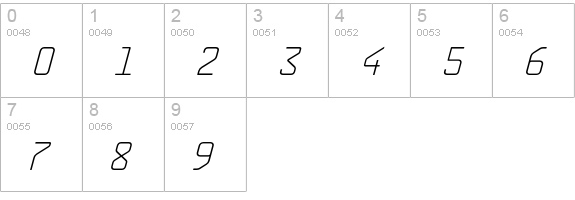
AlphavilleThin-Oblique Font Details
AlphavilleThin-Oblique is a distinctive, italic variant in the AlphavilleThin typeface family \xE2\x80\x94 well suited to design and typography projects.
AlphavilleThin-Oblique font is a sleek and modern typeface that exudes sophistication and elegance. Its thin, slanted design adds a touch of style to any project, making it perfect for use in fashion magazines, luxury branding, and high-end design projects. With its sharp lines and refined curves, AlphavilleThin-Oblique font is sure to make a statement and capture attention. And the best part? AlphavilleThin-Oblique font is available for free download at FontsMarket.com. Whether you're a designer looking to add a touch of class to your work or a business owner wanting to elevate your branding, this font is a must-have in your collection. Don't miss out on this opportunity to enhance your projects with the sophisticated charm of AlphavilleThin-Oblique font. Download it for free today at FontsMarket.com and elevate your design game to the next level.